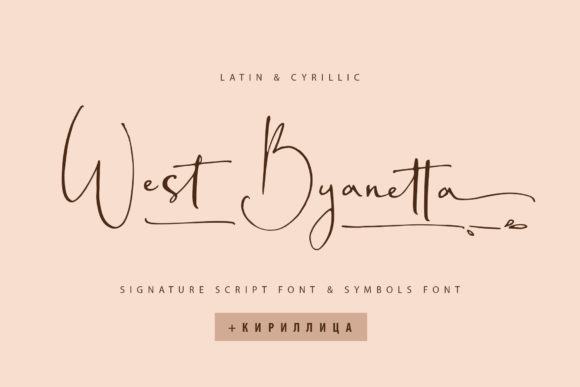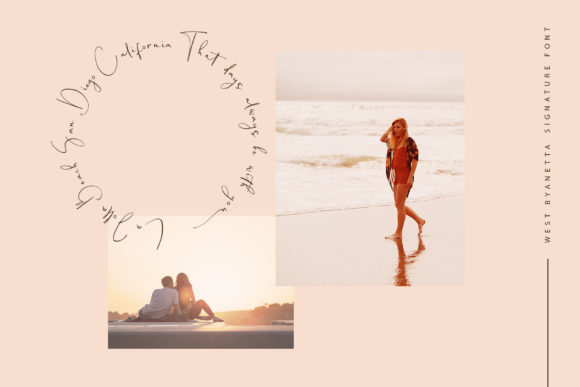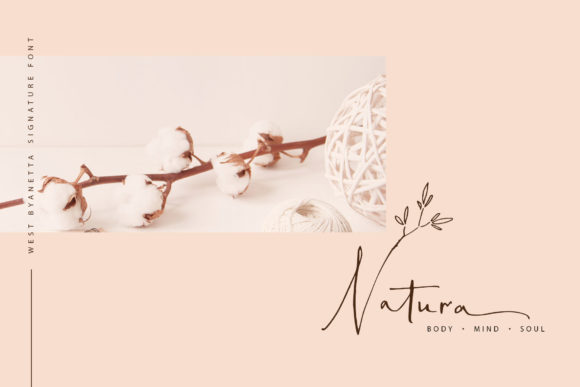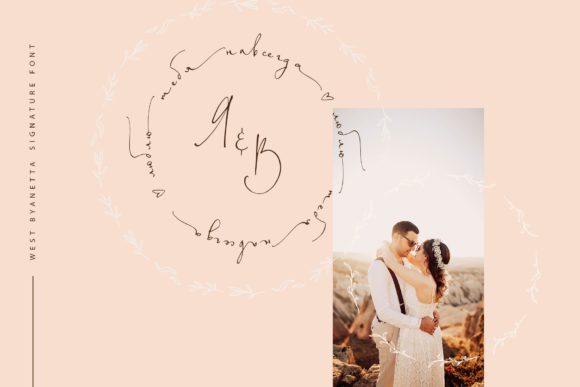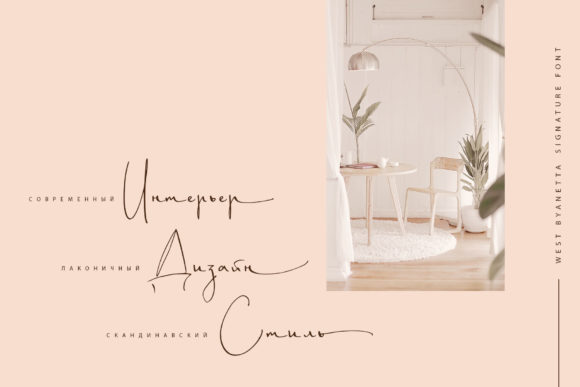
West Byanetta Font
About West Byanetta Font
West Byanetta is an elegant and graceful handwritten font. It looks gorgeous on any design which needs a personalized touch. West Byanetta is PUA encoded which means you can access all of the glyphs and swashes with ease!